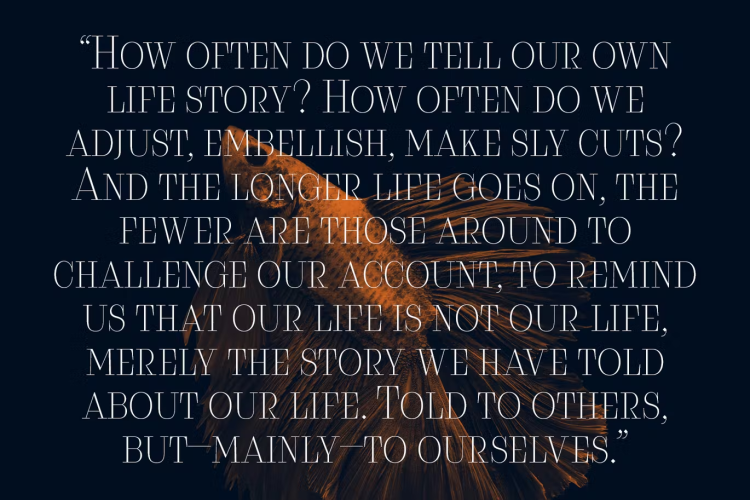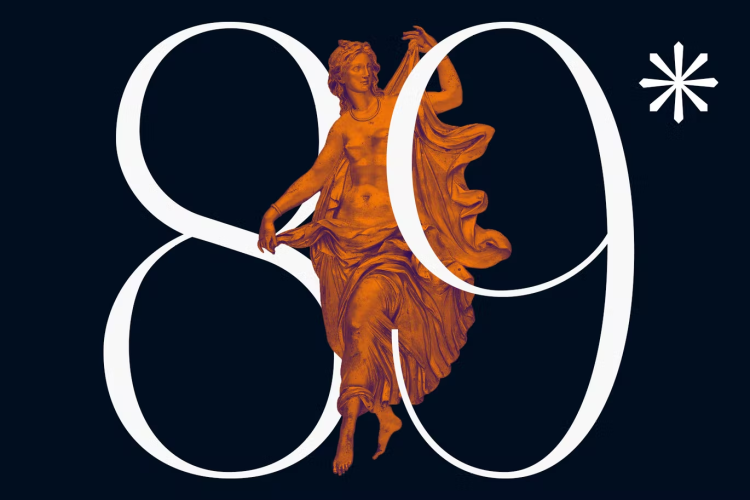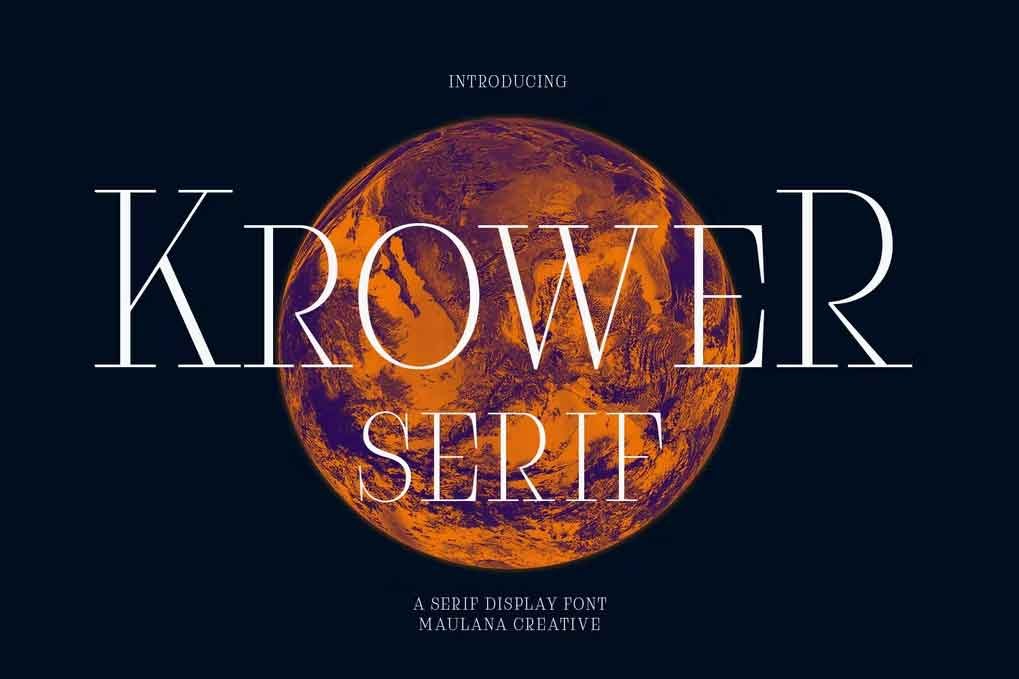
Krower Serif Display Font
Krower is a Caps and Small Caps Display Serif font. With light contrast stroke, Strong character with a bit of ligatures and alternates. To give you an extra creative wo…
Krower is a Caps and Small Caps Display Serif font. With light contrast stroke, Strong character with a bit of ligatures and alternates. To give you an extra creative work. Krower font support multilingual more than 100+ language. This font is good for logo design, Social media, Movie Titles, Books Titles, a short text even a long text letter and good for your secondary text font with sans or script. Make a stunning work with Krower font.
Where Krower Serif Display Font works best
Reports, white papers and book interiors hold the eye longer when the text face has real serifs; Krower Serif Display Font keeps that rhythm without looking old-fashioned.
Food, spirits and cosmetics brands lean on serif wordmarks to suggest age and care. Krower Serif Display Font gives that signal at wordmark size.
Set Krower Serif Display Font for the body of an award or a diploma and keep the recipient name in a script; the pairing is what makes a document feel official.
What kind of work does Krower Serif Display Font suit?
It sits in the Serif Fonts group and reads as branding, creative, display, readable. That makes it a candidate wherever those qualities help: headings, packaging, social graphics and brand work. Set it at the size you plan to use before deciding.